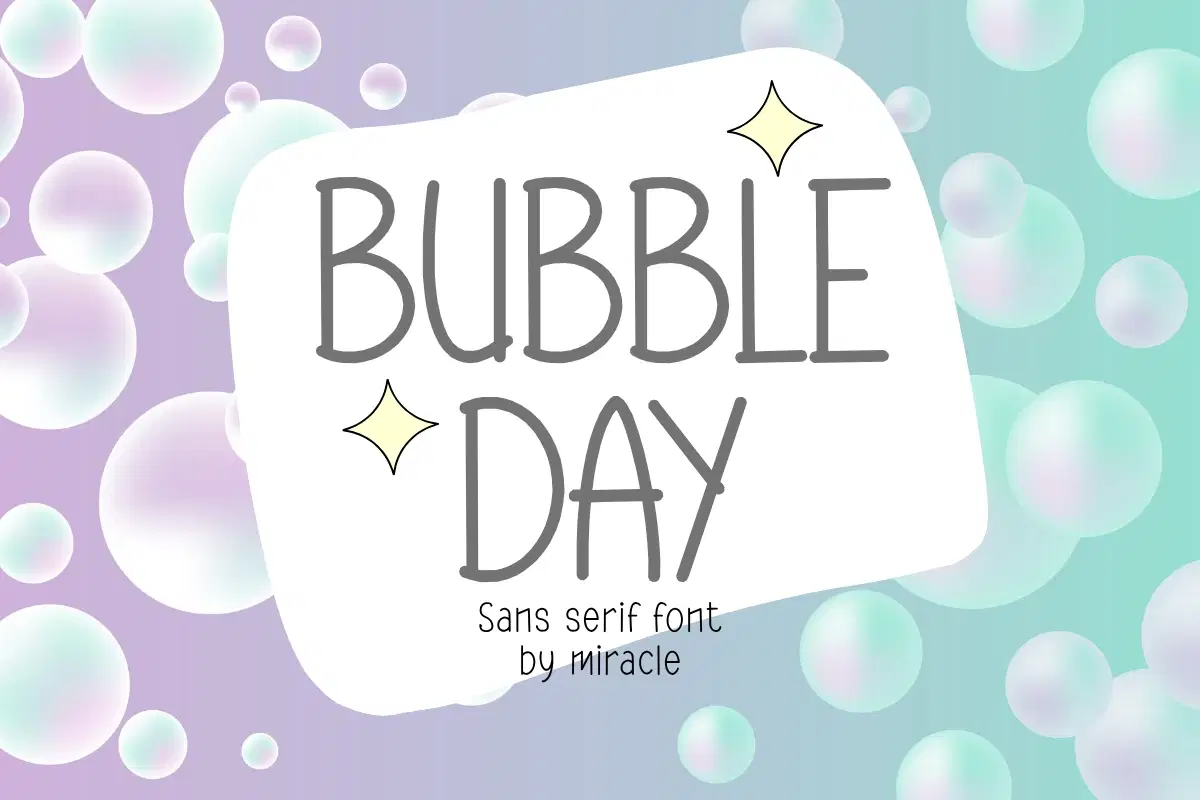
Elevate your creative vision with Bubble Day, a uniquely slender and airy sans serif font by Miracle. Designed with a minimalist yet playful touch, this font features tall, elegant letterforms that bring a sense of lighthearted sophistication to any layout. Its clean lines and gentle curves make it the perfect choice for designs that need to breathe while maintaining a cheerful personality.
Bubble Day is exceptionally versatile, blending seamlessly into modern aesthetics. Whether you're crafting a minimalist brand identity or a fun social media campaign, this font adds a "bubbly" and refreshing vibe that captures attention instantly.